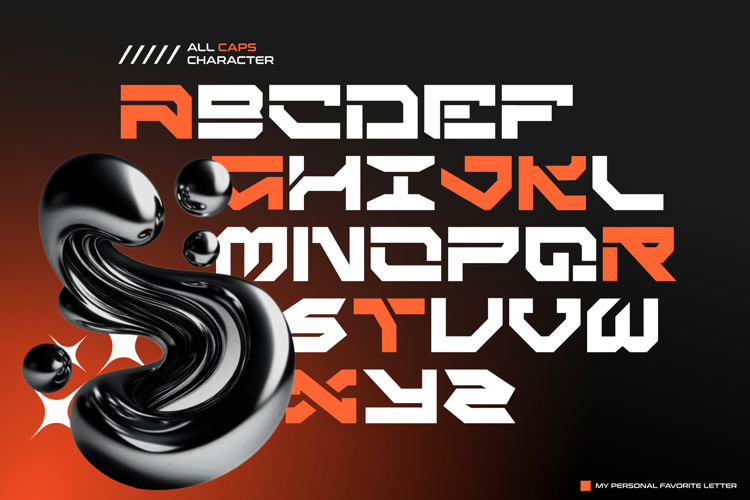
KRAGX Font
KRAGX - TECHNOCYBER DISPLAY FONT is inspired by a futuristic vibe, especially cyberpunk and futuristic technology. The typeface is based on simple and futuristic tech shapes, making it a hi-tech project created by VROZ STUDIO in 2024.